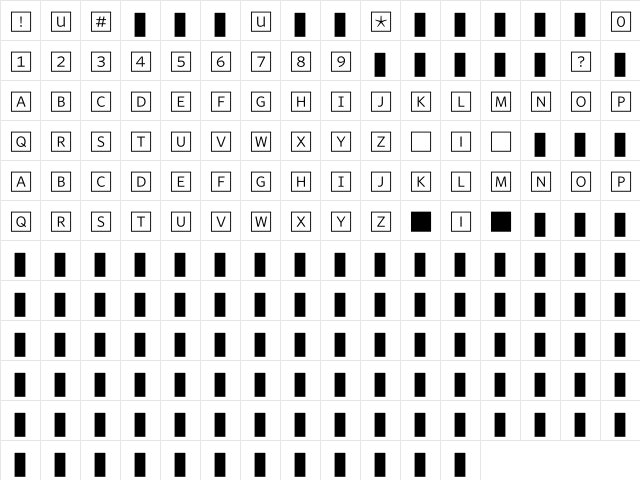
WhitneyIndexWhite SquareLt1
Design Context for WhitneyIndexWhite Typeface
WhitneyIndexWhite offers clean, dependable letterforms without strong stylistic allegiance, making it a practical choice for designers who need flexibility.